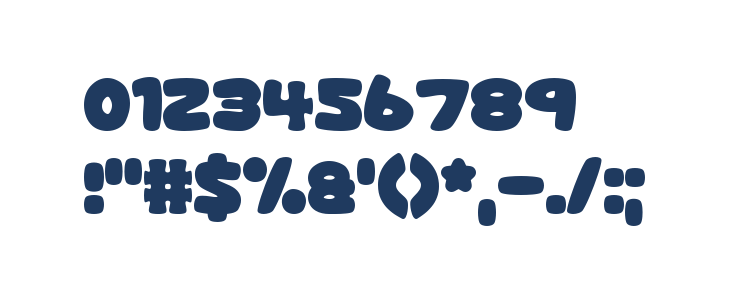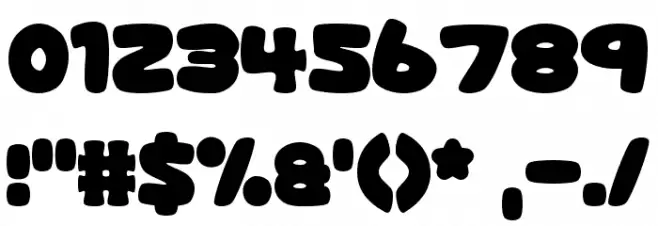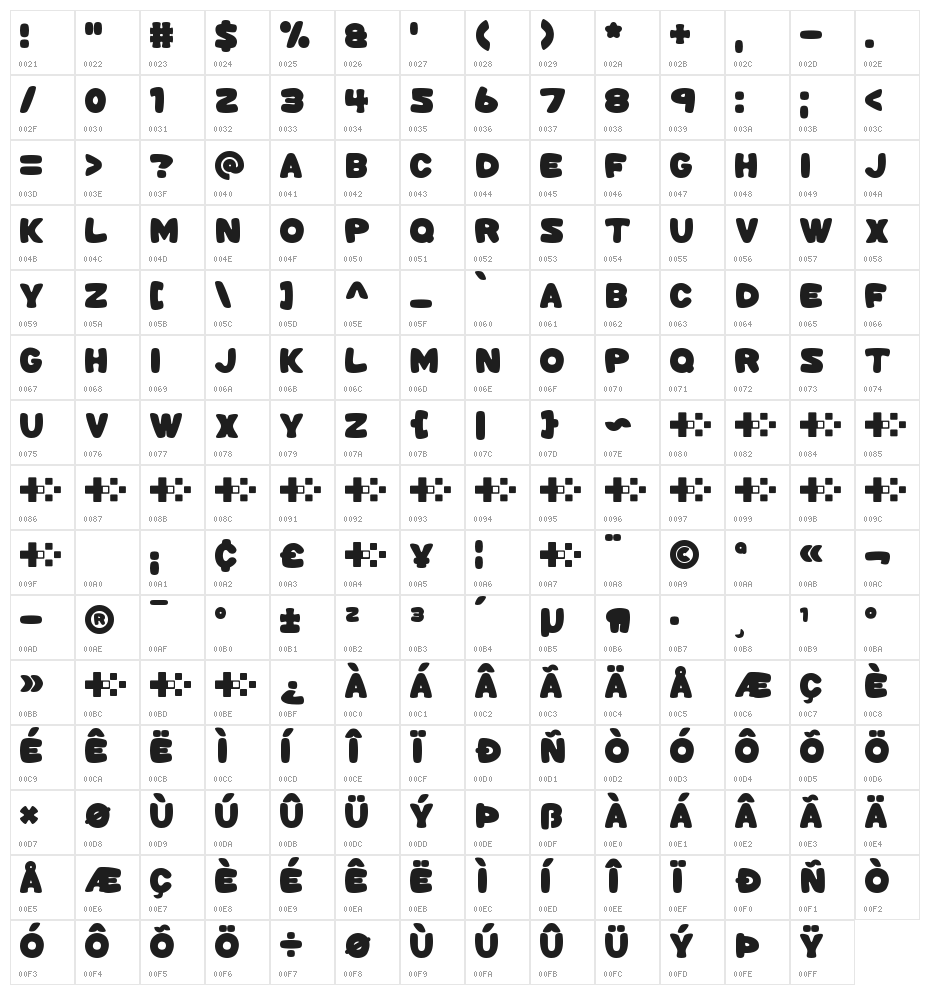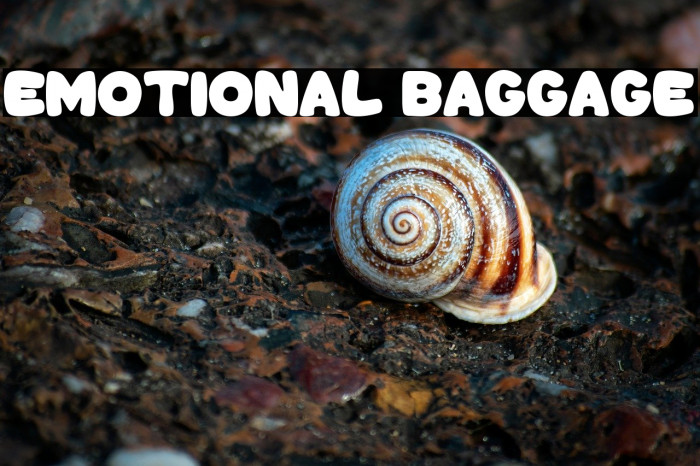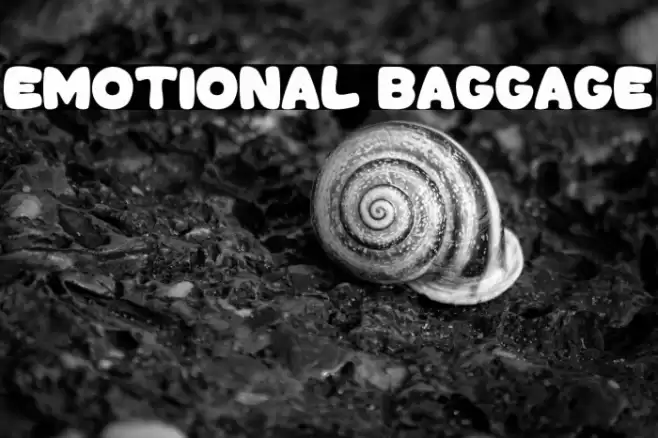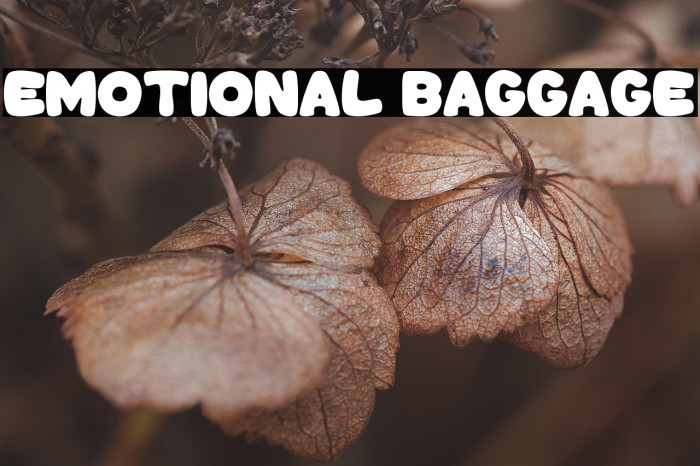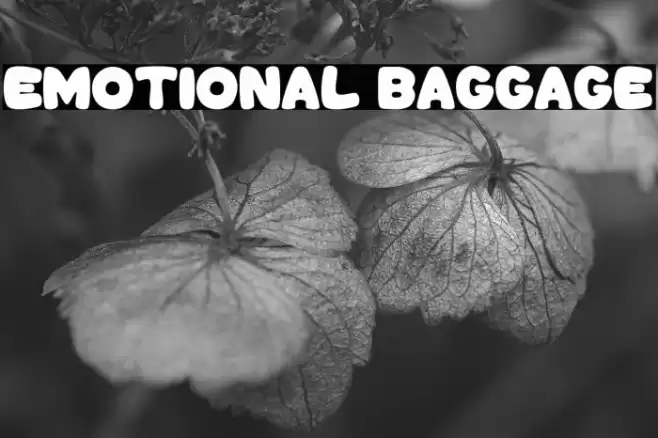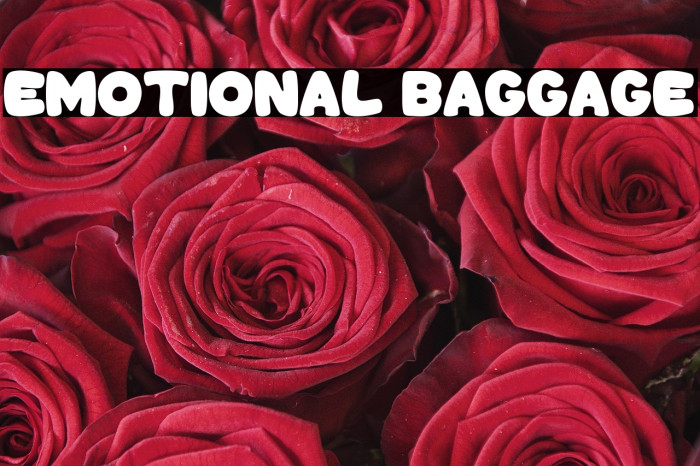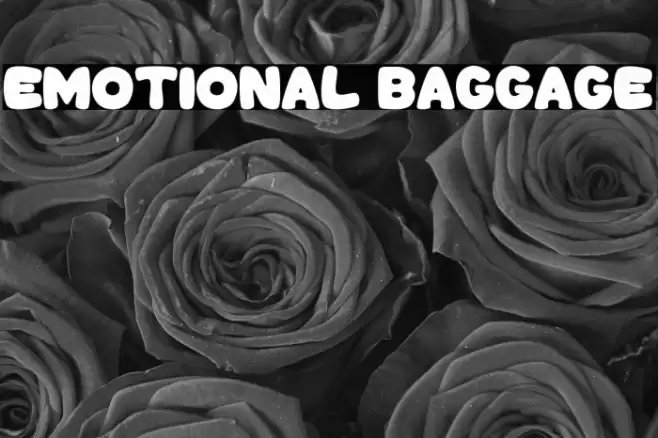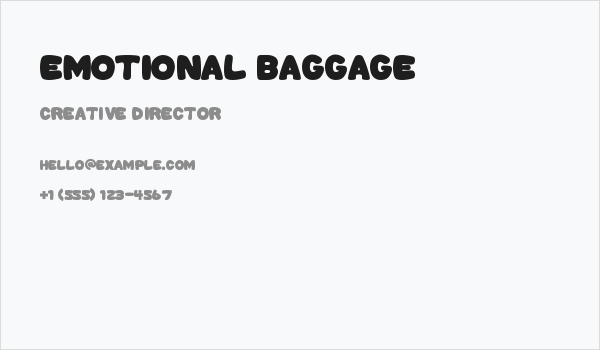
Emotional Baggage Font
Emotional Baggage Description
This font features a bold, playful style with rounded, thick strokes that give it a bubbly and friendly appearance. The characters are uniformly wide, creating a sense of balance and consistency across the alphabet. The rounded edges and lack of sharp angles contribute to its approachable and informal feel. This font is highly legible, with each character distinctly separated, making it suitable for eye-catching designs. The numbers and special characters maintain the same playful aesthetic, ensuring a cohesive look in any text. Its unique style makes it stand out, perfect for projects that require a touch of whimsy and creativity.
Overall StylePlayful
Proposed ProjectsIdeal for children's books, playful branding, party invitations, and creative posters.